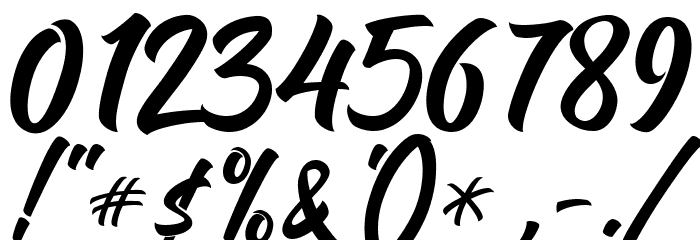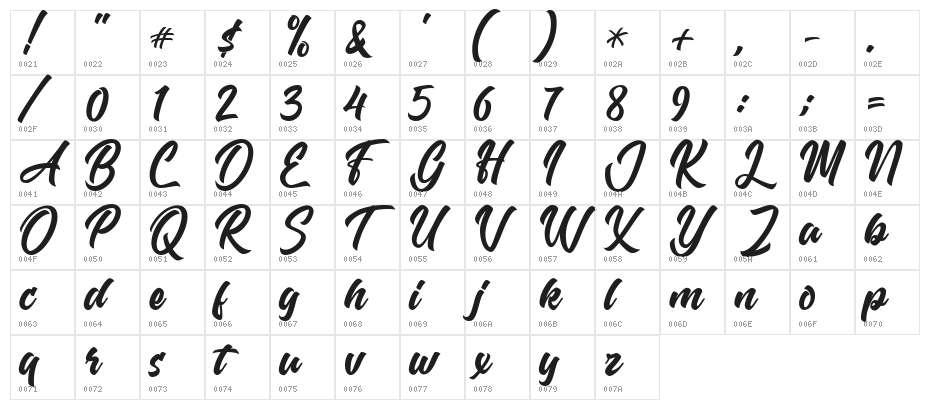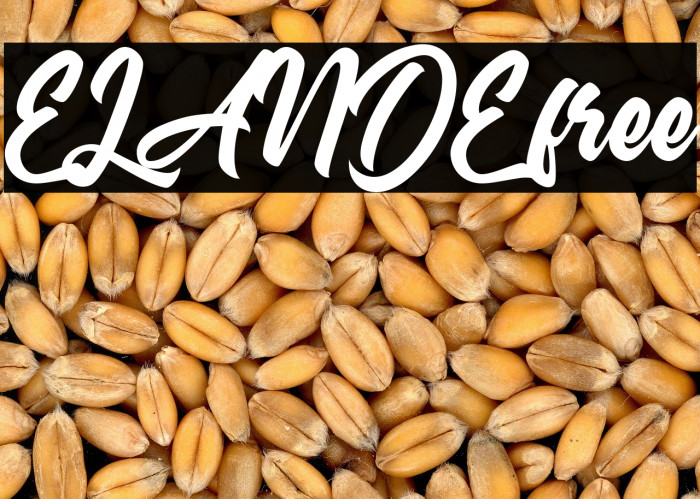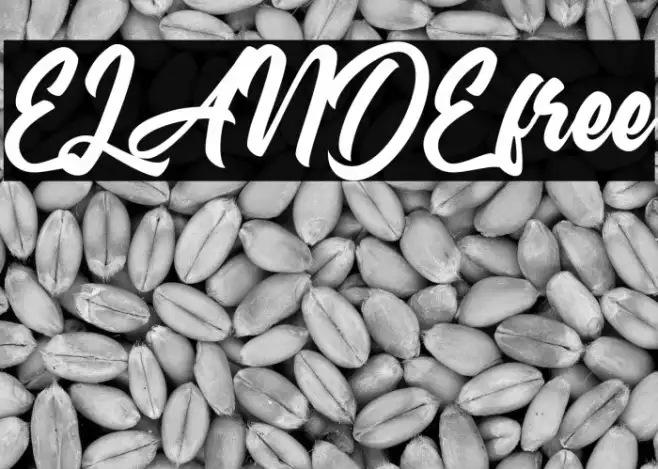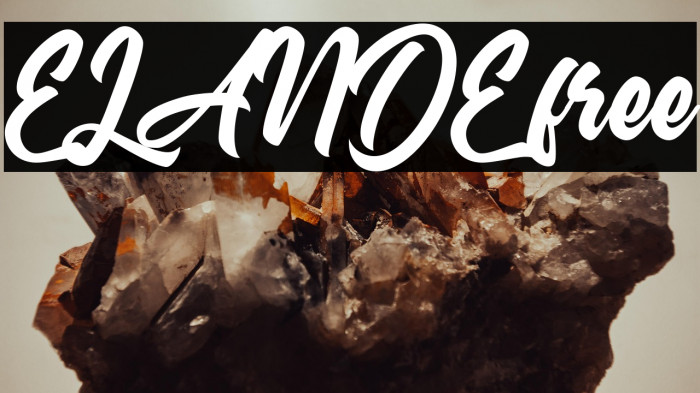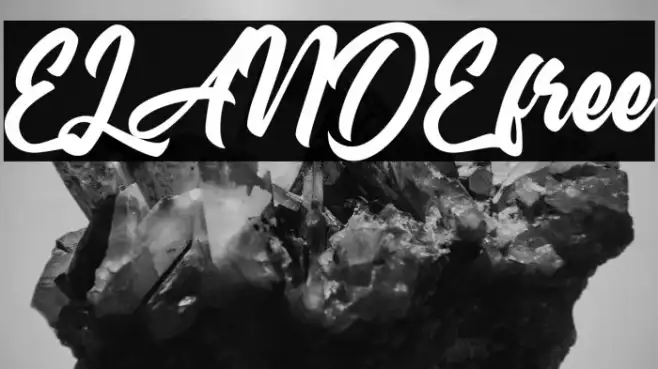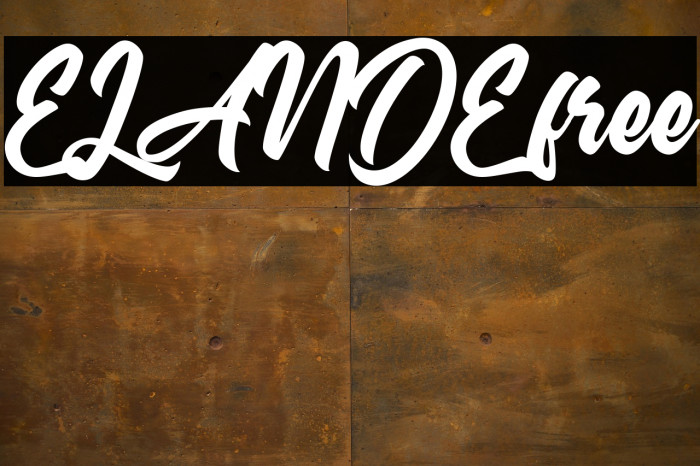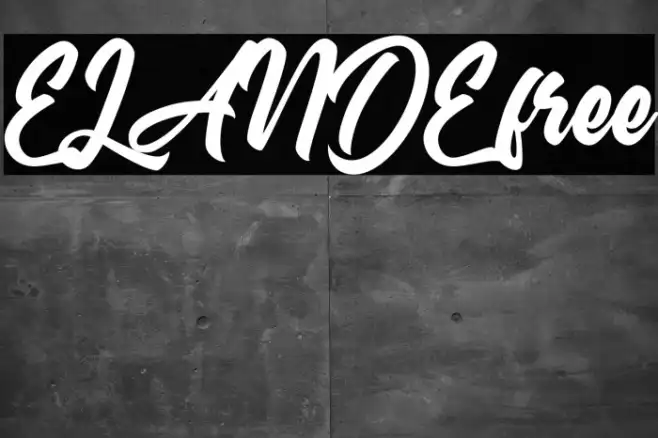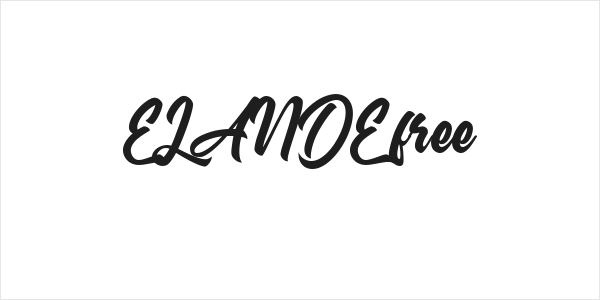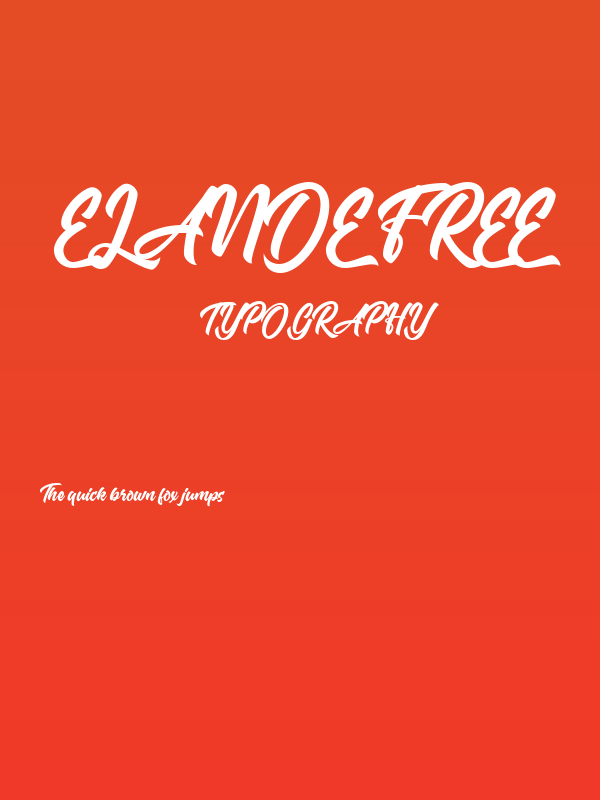
ELANDE free Font
ELANDE free Description
This font features a bold and expressive script style, characterized by its flowing, cursive letterforms. The uppercase letters are elegantly connected, while the lowercase letters maintain a consistent, smooth flow. The numbers and special characters follow the same dynamic style, adding a cohesive look to the entire set. The strokes are thick and confident, providing a strong visual impact. This font is ideal for creating eye-catching designs that require a touch of elegance and flair.
| Proposed Projects | Ideal for branding, invitations, greeting cards, and logo design. |